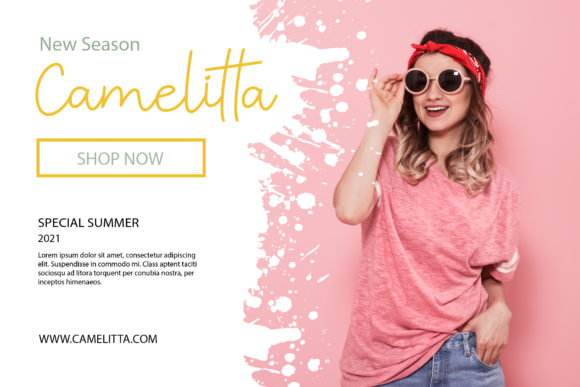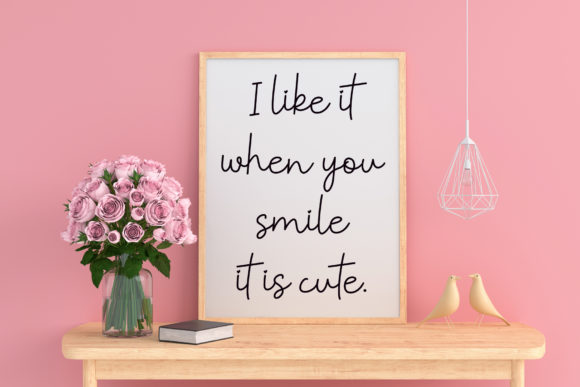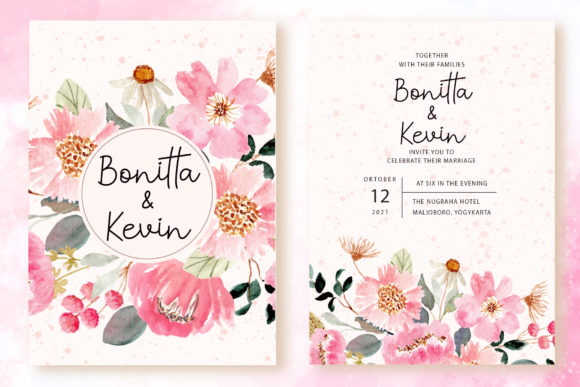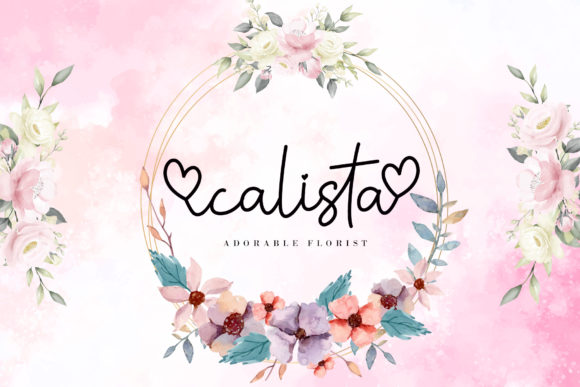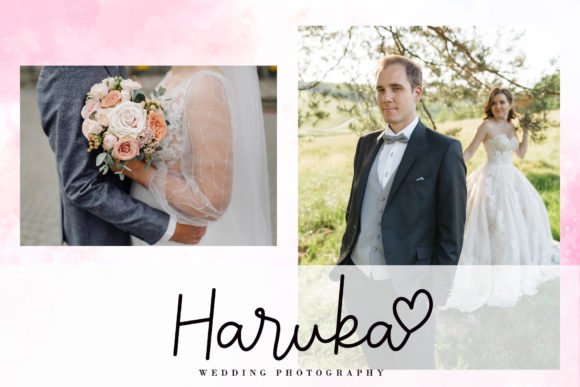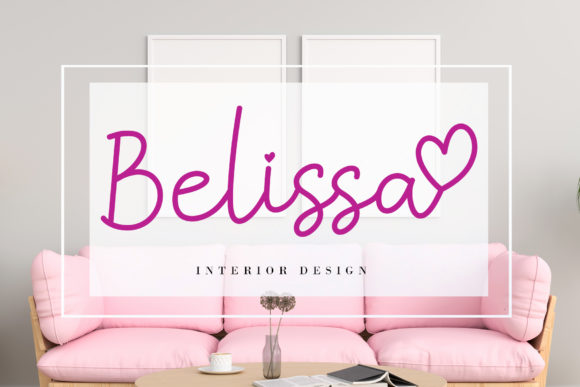
Introducing Careista Font: The Sweet and Flowing Handwritten Font
Are you a designer or crafter looking for a unique and elegant font to elevate your designs? Look no further than Careista Font, a sweet and flowing handwritten font that is sure to capture your heart. With its classy calligraphic influences and contemporary feel, Careista Font is the perfect addition to any design project.
What Makes Careista Font Special?
Careista Font is a PUA encoded font, which means that you can access all of the glyphs and swashes with ease. This makes it incredibly versatile and easy to use, even for those who are new to font design. The font maintains its classy calligraphic influences while feeling fresh and modern, making it perfect for a wide range of design applications.
The Timeless Style of Careista Font
One of the standout features of Careista Font is its incredibly distinct and timeless style. The font has a unique, hand-crafted feel that is reminiscent of traditional calligraphy, but with a modern twist. This makes it perfect for designers and crafters who want to create designs that are both elegant and contemporary.
Use Careista Font to Create Spectacular Designs
With Careista Font, the possibilities are endless. Whether you’re creating wedding invitations, branding materials, or social media graphics, this font is sure to elevate your designs to the next level. Its flowing, handwritten style is perfect for creating beautiful and eye-catching text, and its versatility makes it easy to use in a wide range of design applications.
Key Features of Careista Font
- Classy calligraphic influences with a contemporary feel
- Incredibly distinct and timeless style
- Perfect for a wide range of design applications, including wedding invitations, branding materials, and social media graphics
- Easily accessible and easy to use, even for those who are new to font design
Why Designers and Crafters Love Careista Font
Designers and crafters love Careista Font for its unique and elegant style, as well as its versatility and ease of use. Whether you’re creating digital designs or hand-crafted projects, Careista Font is the perfect addition to your toolkit. Its timeless style and flowing, handwritten feel make it perfect for creating beautiful and eye-catching text, and its PUA encoding makes it easy to access all of the glyphs and swashes.
Get Ready to Fall in Love with Careista Font
If you’re looking for a font that will elevate your designs and add a touch of elegance and sophistication, look no further than Careista Font. With its sweet and flowing handwritten style, classy calligraphic influences, and contemporary feel, Careista Font is sure to capture your heart. So why wait? Get ready to fall in love with Careista Font and take your designs to the next level!
In conclusion, Careista Font is a sweet and flowing handwritten font that is perfect for designers and crafters looking to elevate their designs. With its unique and elegant style, versatility, and ease of use, Careista Font is the perfect addition to any design project. So if you’re looking for a font that will add a touch of elegance and sophistication to your designs, look no further than Careista Font.